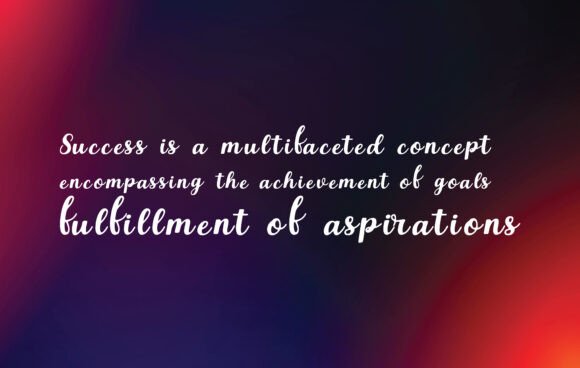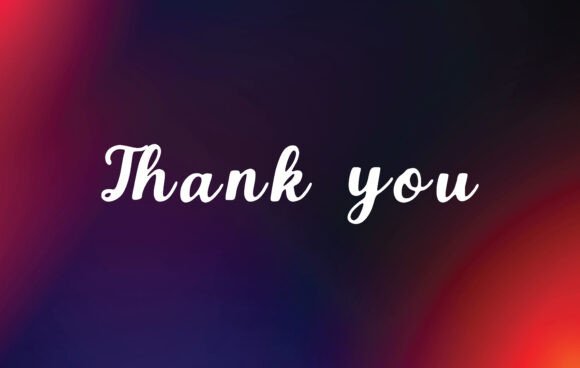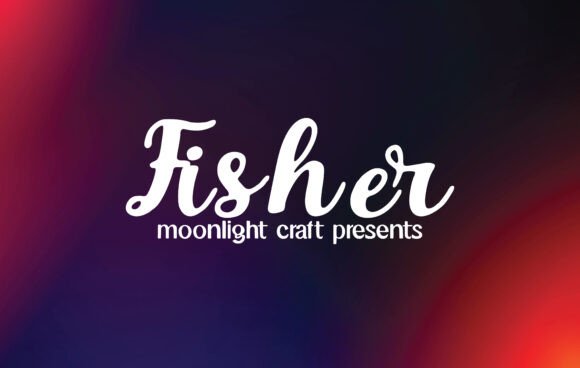
Fisher Font: Elevate Your Designs with this Lovely Handwritten Font
Are you a designer or crafter looking for a font that can take your creative ideas to the next level? Look no further than Fisher Font, a beautiful handwritten font that is sure to impress. With its unique and elegant style, Fisher Font is the perfect choice for creating eye-catching logos, branding, and quotes that will leave a lasting impression on your audience.
The Beauty of Fisher Font
Fisher Font is a stunning handwritten font that exudes elegance and sophistication. Its flowing lines and curves create a sense of movement and fluidity, making it perfect for designs that require a touch of personality and whimsy. Whether you’re looking to create a logo, branding materials, or social media graphics, Fisher Font is sure to add a touch of class and refinement to your designs.
Why Choose Fisher Font?
So why choose Fisher Font over other fonts? Here are just a few reasons why Fisher Font stands out from the crowd:
• Unique and Elegant Style: Fisher Font has a unique and elegant style that is sure to make your designs stand out from the crowd.
• Versatile: Fisher Font is versatile and can be used for a wide range of design projects, from logos and branding to quotes and social media graphics.
• Easy to Read: Despite its elegant style, Fisher Font is easy to read and understand, making it perfect for designs that require a clear and concise message.
• High-Quality: Fisher Font is a high-quality font that is designed to produce crisp and clear results, even at small sizes.
Uses for Fisher Font
Fisher Font is a versatile font that can be used for a wide range of design projects, including:
• Logos and Branding: Fisher Font is perfect for creating eye-catching logos and branding materials that will help your business stand out from the crowd.
• Quotes and Social Media Graphics: Fisher Font is also great for creating quotes and social media graphics that will engage and inspire your audience.
• Invitations and Stationery: Fisher Font can be used to create beautiful invitations and stationery that will add a touch of elegance to any occasion.
• Packaging and Product Design: Fisher Font can also be used for packaging and product design, adding a touch of personality and whimsy to your products.
Tips for Using Fisher Font
Here are a few tips for using Fisher Font in your designs:
• Use it Sparingly: Fisher Font is a elegant font, so use it sparingly to add a touch of sophistication to your designs.
• Experiment with Colors: Fisher Font looks great in a variety of colors, so experiment with different colors to find the one that works best for your design.
• Pair it with Other Fonts: Fisher Font can be paired with other fonts to create a unique and interesting design.
In conclusion, Fisher Font is a beautiful handwritten font that is sure to take your creative ideas to the next level. With its unique and elegant style, Fisher Font is the perfect choice for creating eye-catching logos, branding, and quotes that will leave a lasting impression on your audience. Whether you’re a designer or crafter, Fisher Font is a must-have font that will help you create stunning designs that will inspire and engage your audience.